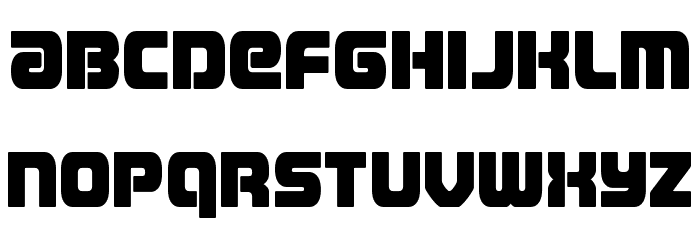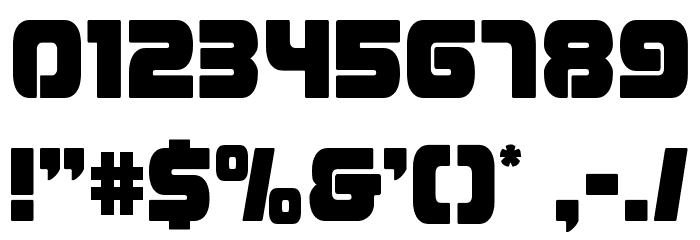
Easy Ride Spaced Font
This font features a bold and geometric design with a strong presence. The characters are constructed with thick, uniform strokes, creating a sense of solidity and modernity. The rounded edges soften the overall appearance, adding a touch of friendliness to the otherwise robust style. The uppercase and lowercase letters maintain consistent proportions, ensuring readability and balance. The numerals and special characters are designed to match the boldness of the alphabet, making them stand out effectively. This font is ideal for projects that require a contemporary and impactful look.
A bold, geometric font with rounded edges and a modern style.
- Proposed Projects: Ideal for branding, posters, headlines, and digital media where a strong, modern look is desired.